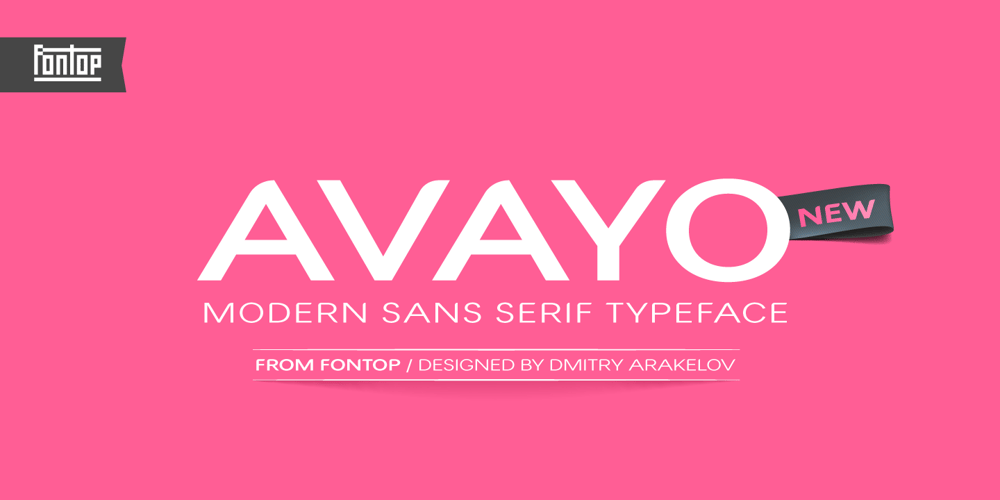
Avayo
Avayo font
Avayo Font Family was designed by Dmitry Arakelov and published by Fontop. Avayo contains 9 styles and family package options. Avayo is a modern sans serif typeface. It is perfect for creating alphabet logos, branding, titles, headlines, but also looks great when being used casually, in copies and texts. Avayo looks simple but special and distinct and is defined by its round cut design.Avayo font family comes in five weights to help you choose the best option depending on your purpose.